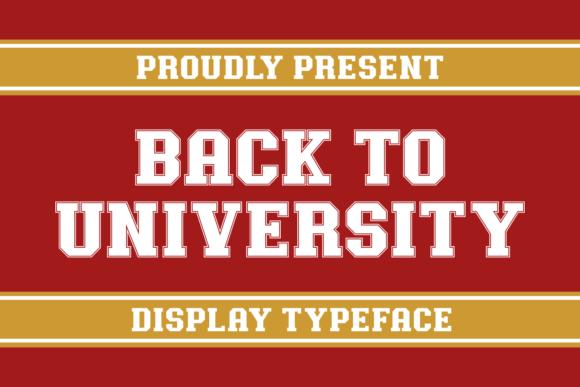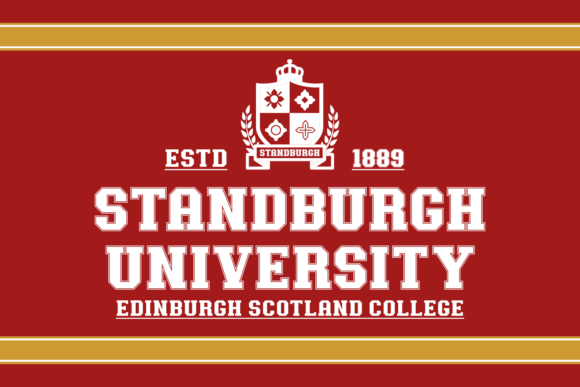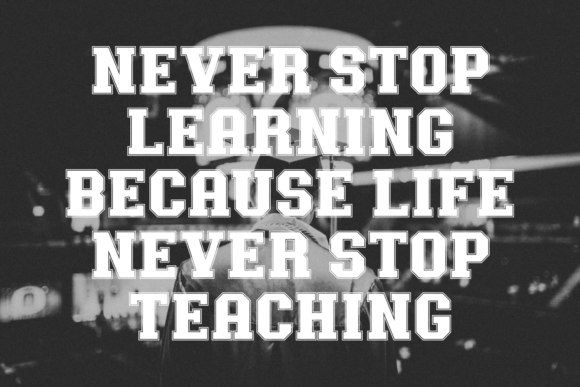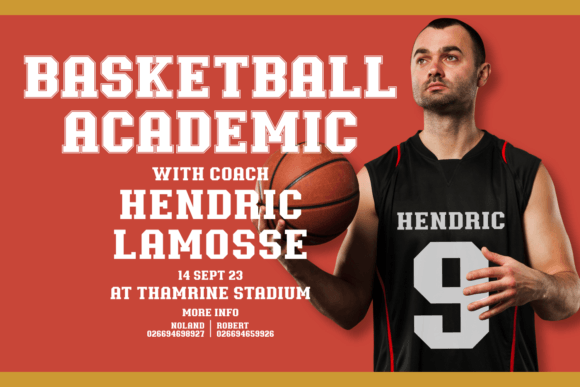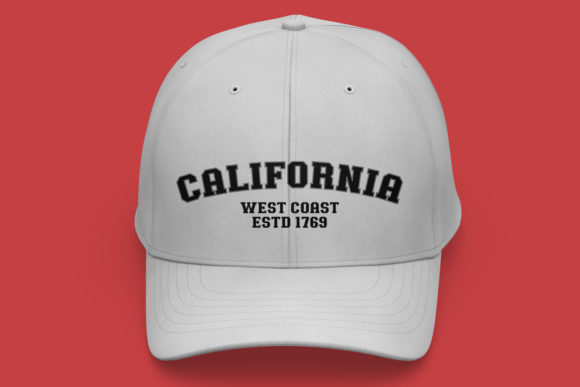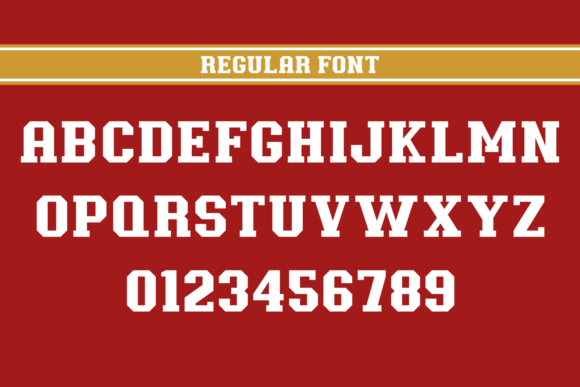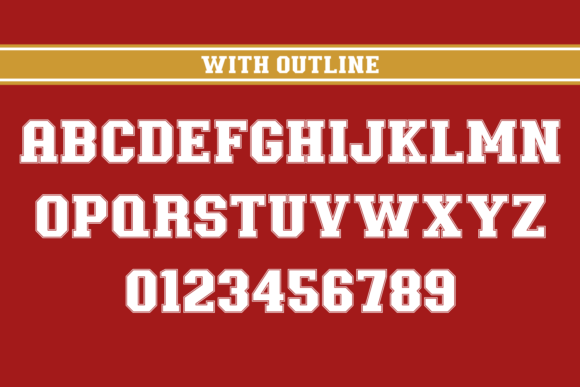
Back to University Font
Back to University font exudes a classic college vibe that takes you right back to campus. With its bold yet refined design, this typeface brings a touch of academic nostalgia to your projects. Whether it’s creating banners, yearbook covers, or event flyers, ‘Back to University’ adds an intellectual charm that resonates with the spirit of higher learning.